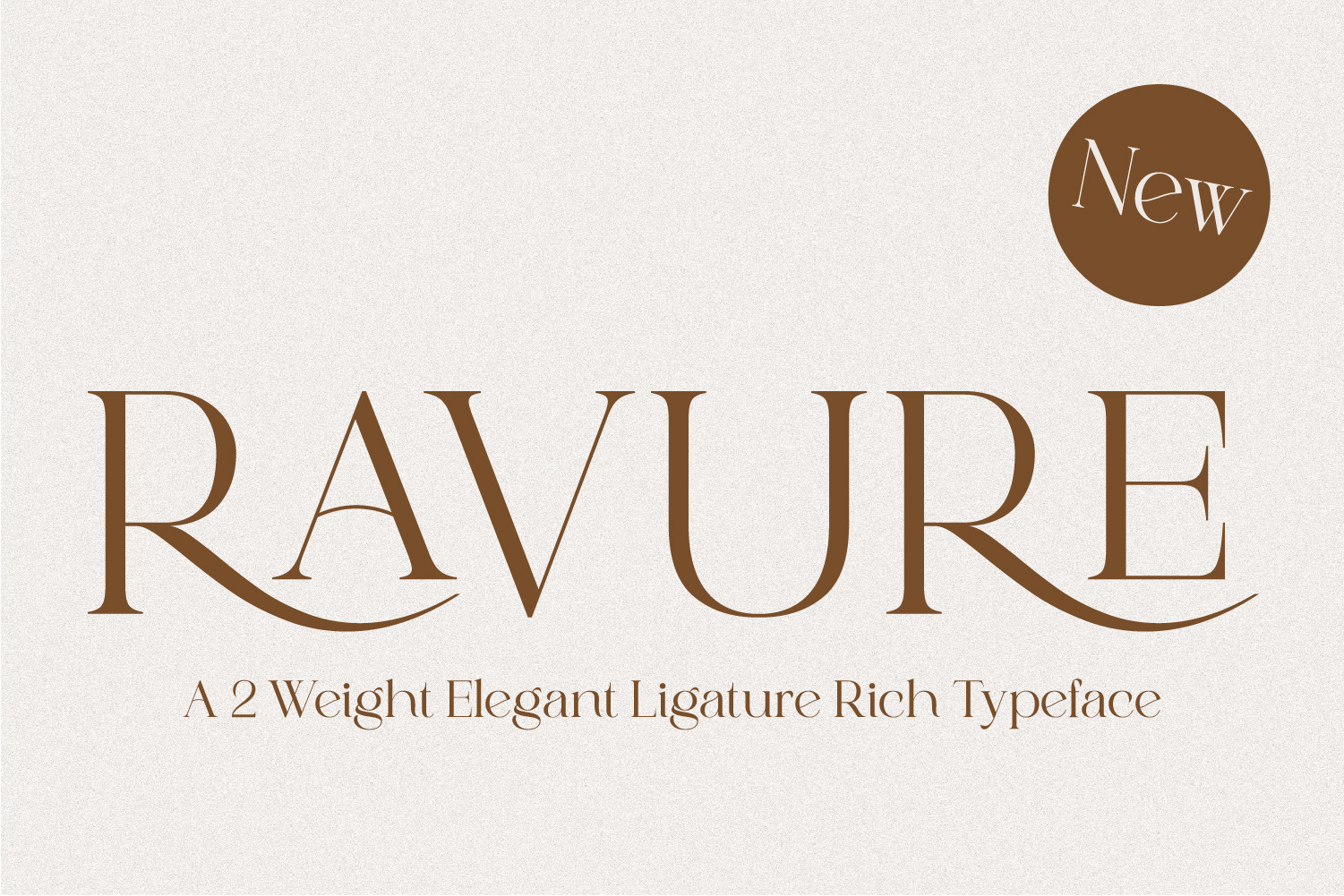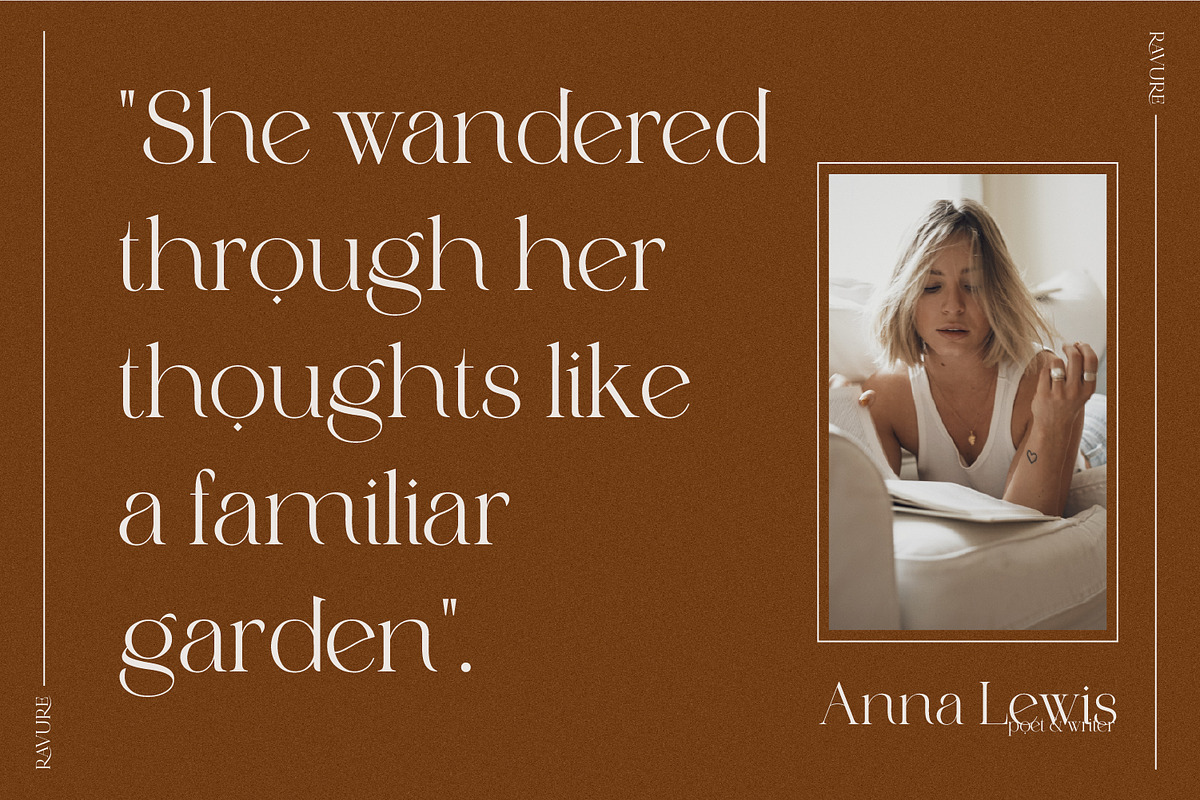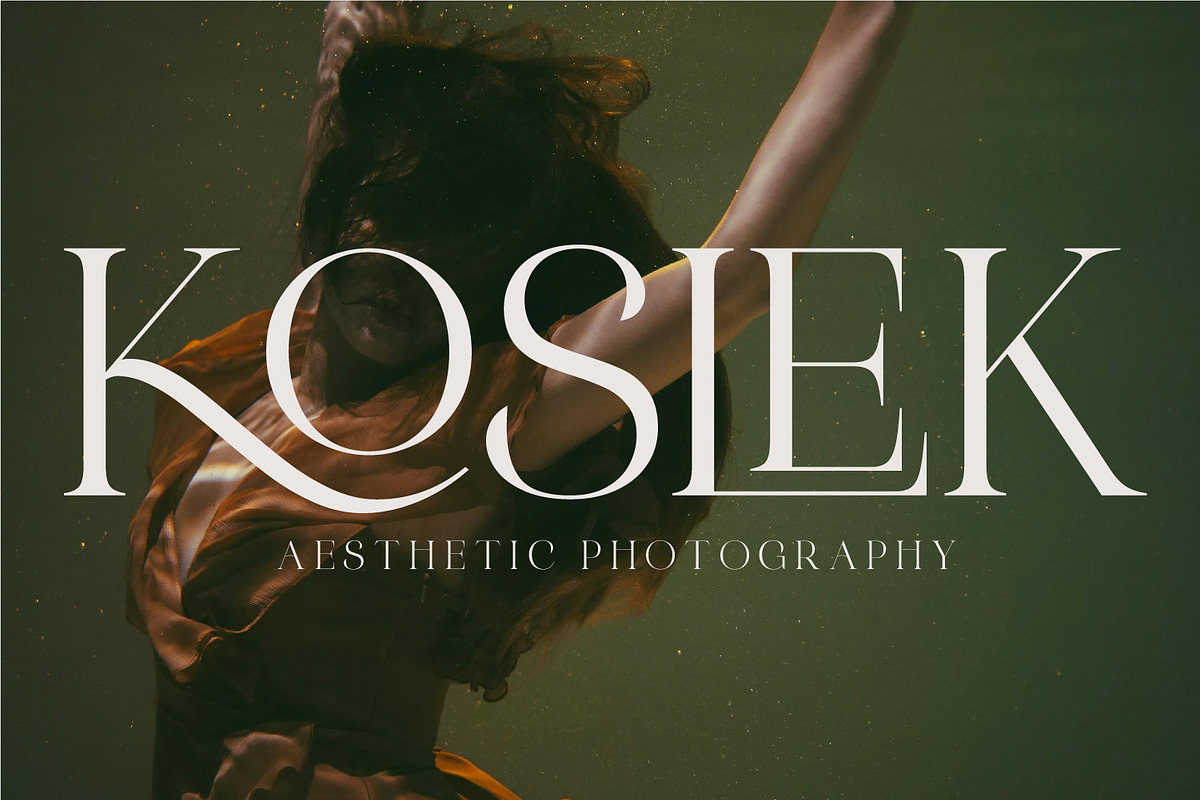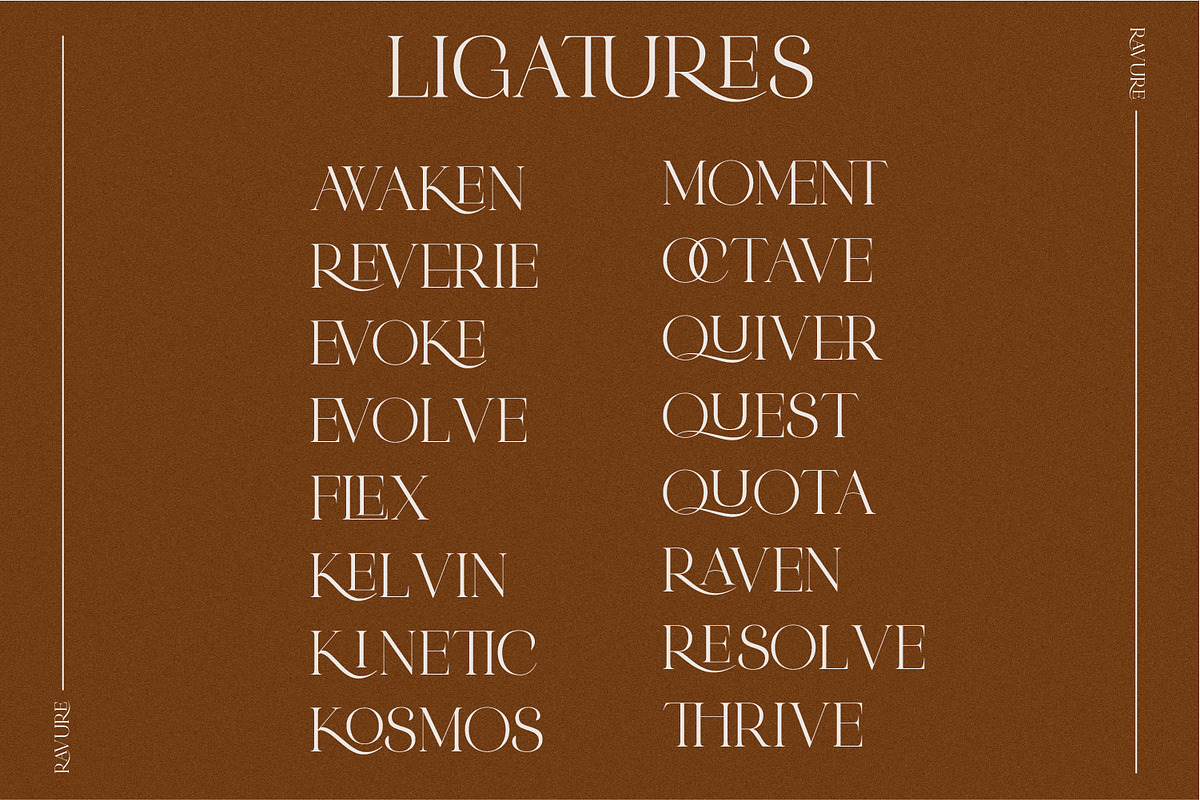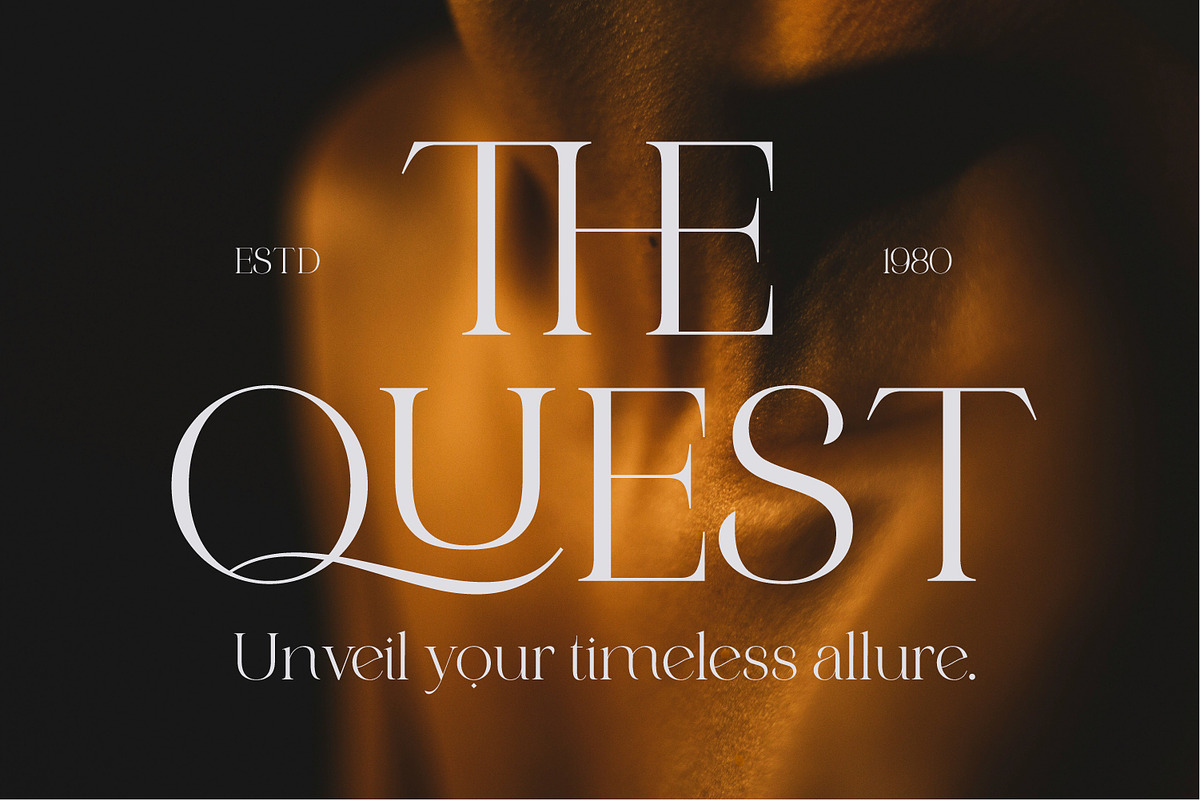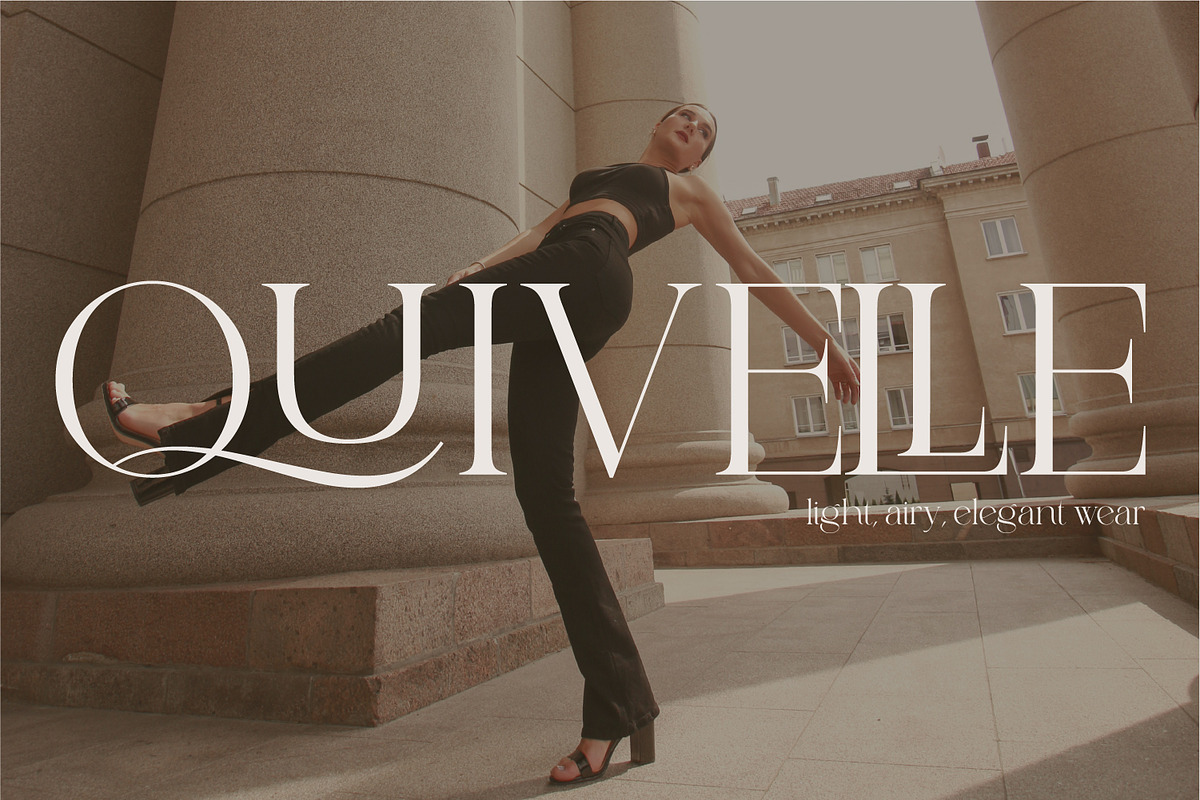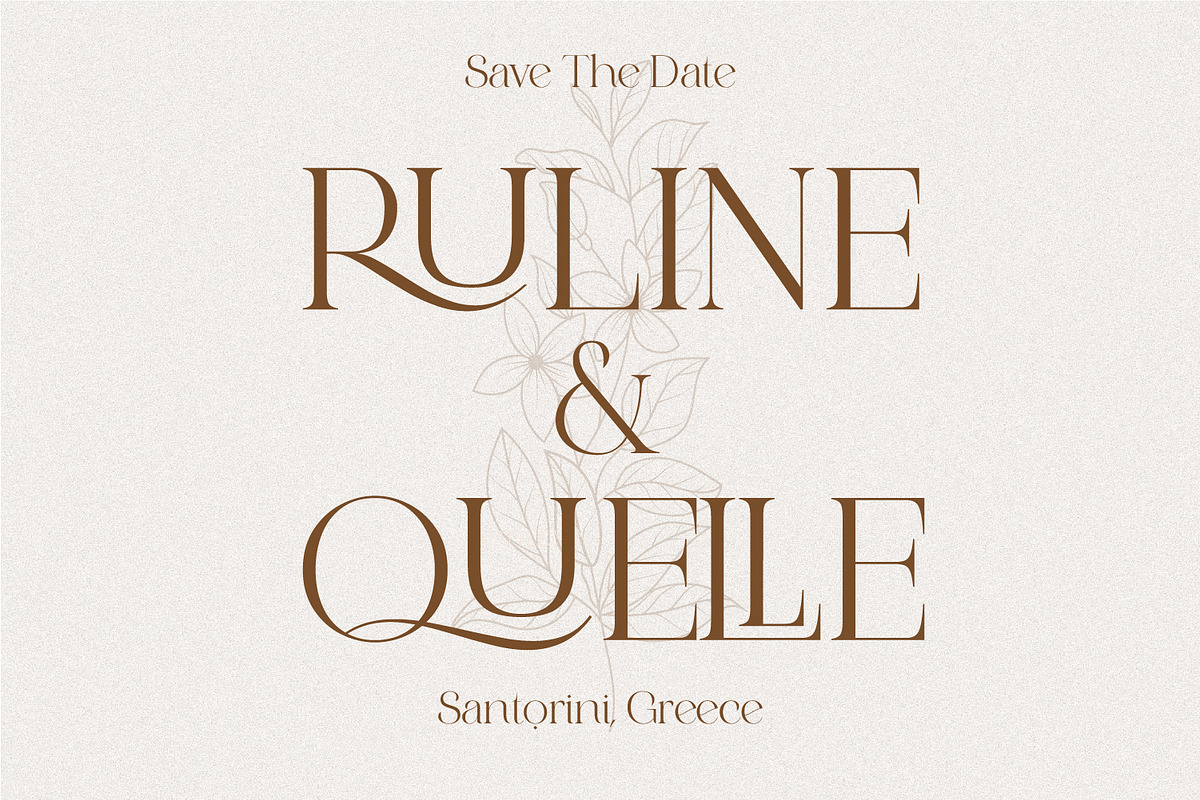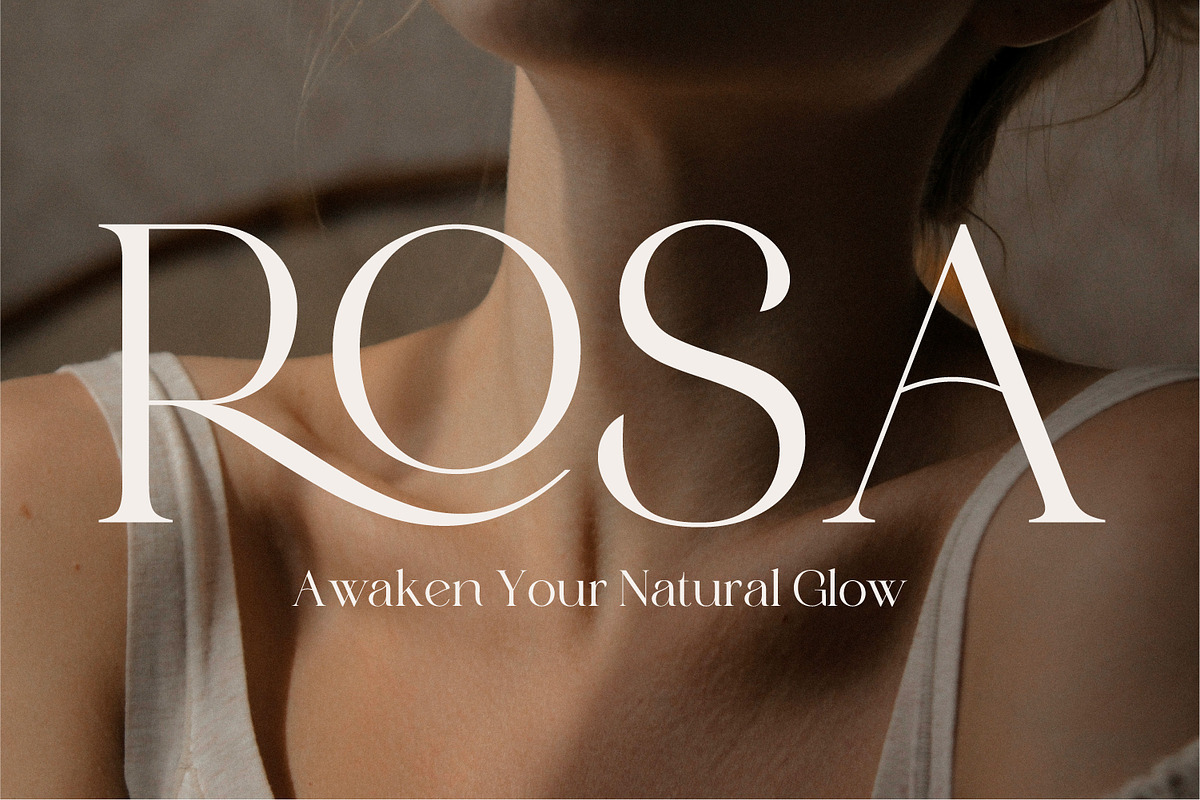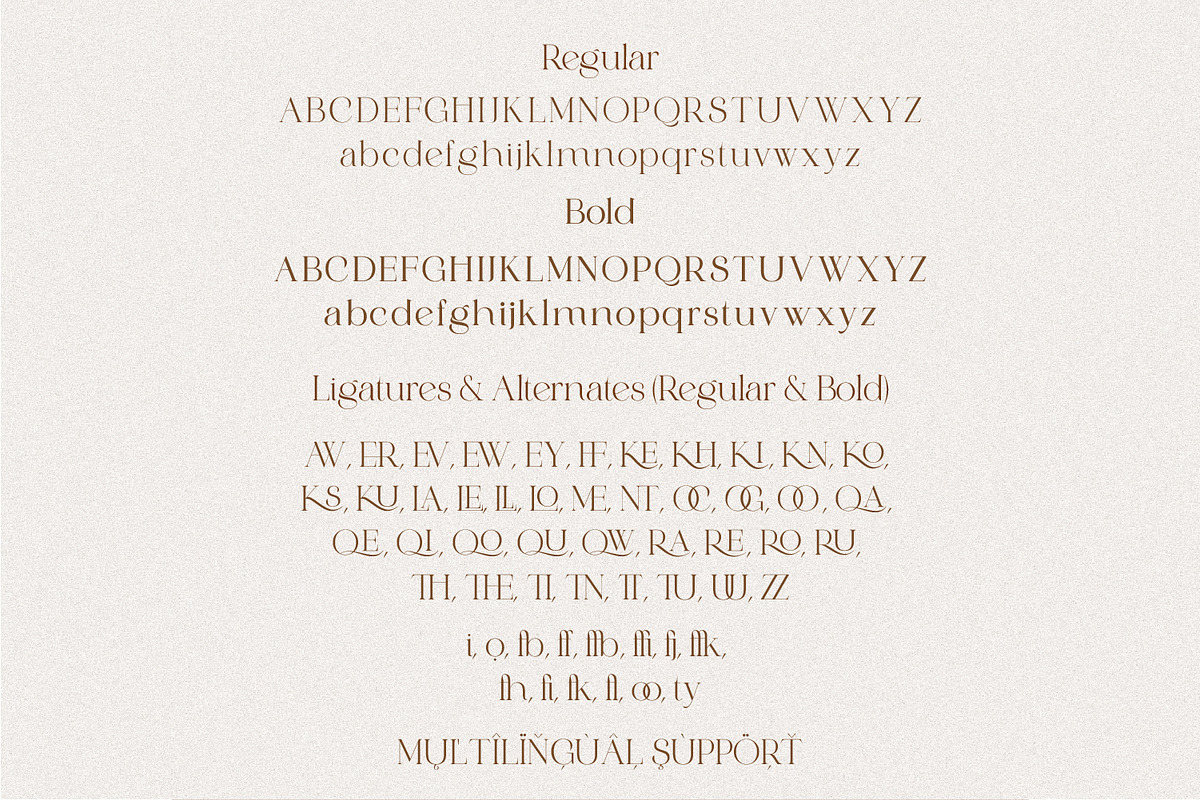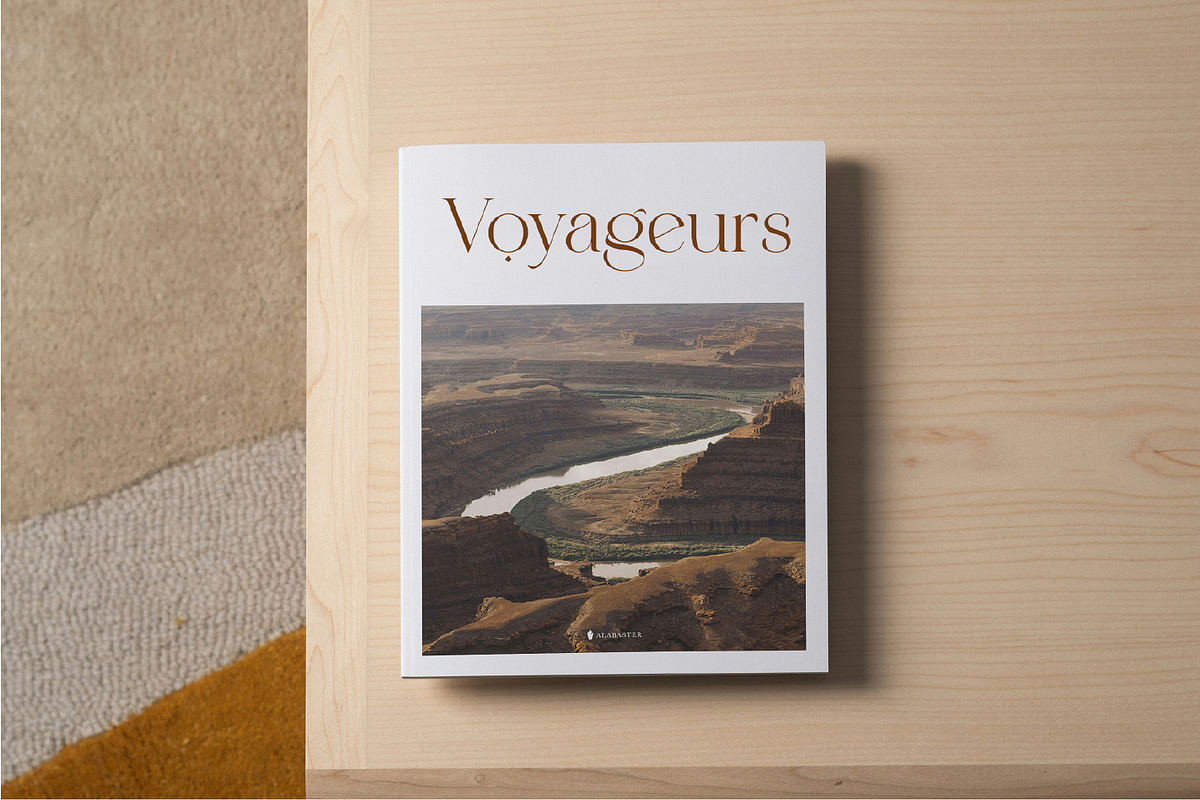
Ravure A Powerful Serif Font
Turn ordinary text into extraordinary art with Ravure — a timeless serif font designed to captivate. Its graceful curves and refined details make it the perfect choice for wedding invitations, luxury branding, social media content, magazine layouts, and editorial projects. Ravure seamlessly blends classic elegance with a modern edge, offering a versatile style that elevates any design. Whether you’re crafting a romantic announcement, a high-end logo, or sophisticated marketing materials, Ravure brings a touch of prestige and beauty to your words.
Why You’ll Love It:
Sophisticated ligatures & alternates for a unique touch
Clean, elegant lines ideal for luxury & editorial projects
Full uppercase & lowercase letters
Stylish ligatures & alternates (fi, fl, ty, AW, ER, EV…)
Multilingual support & special characters
Elevate your design instantly with Ravure – where elegance meets versatility.